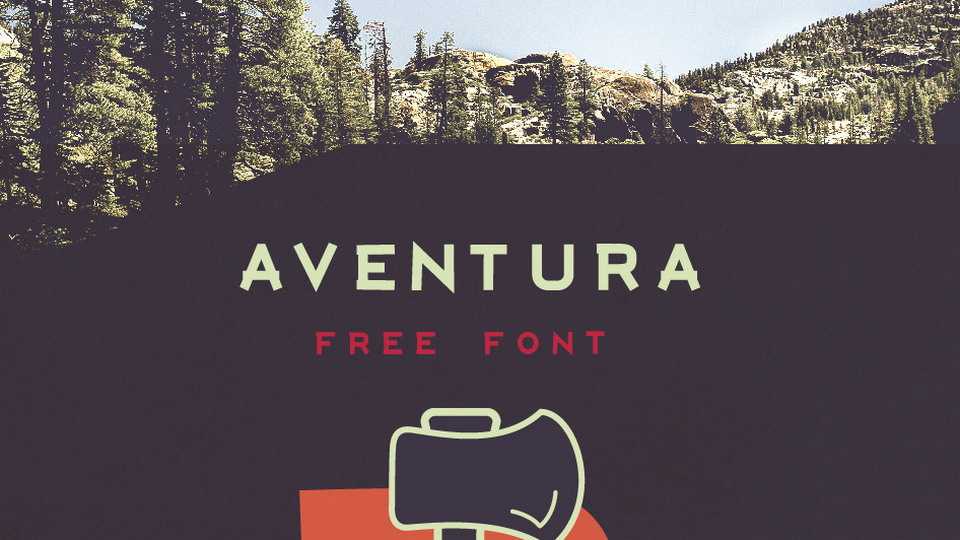
Download Aventura font, a bold display typeface inspired by adventures. Aventura font fits great for logos, labels, headlines, posters, prints, blogs, social media and more.
Designer: Jimmy Kalman